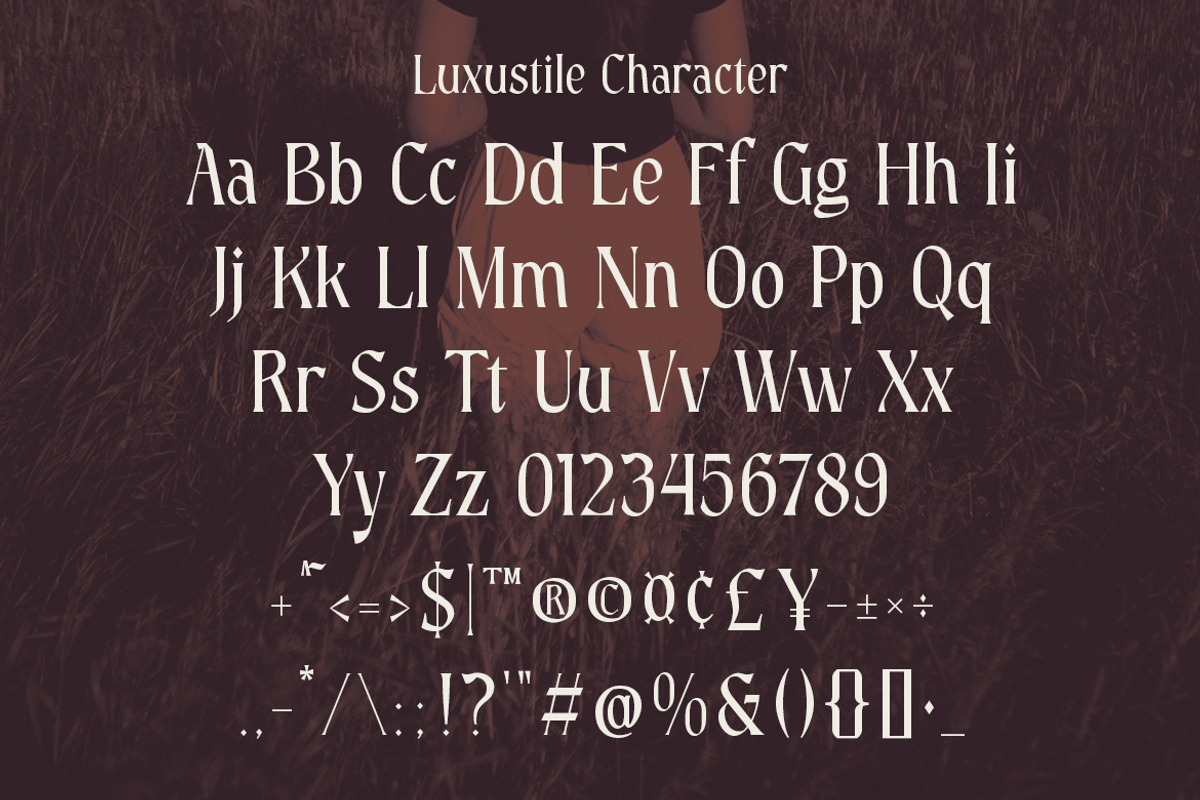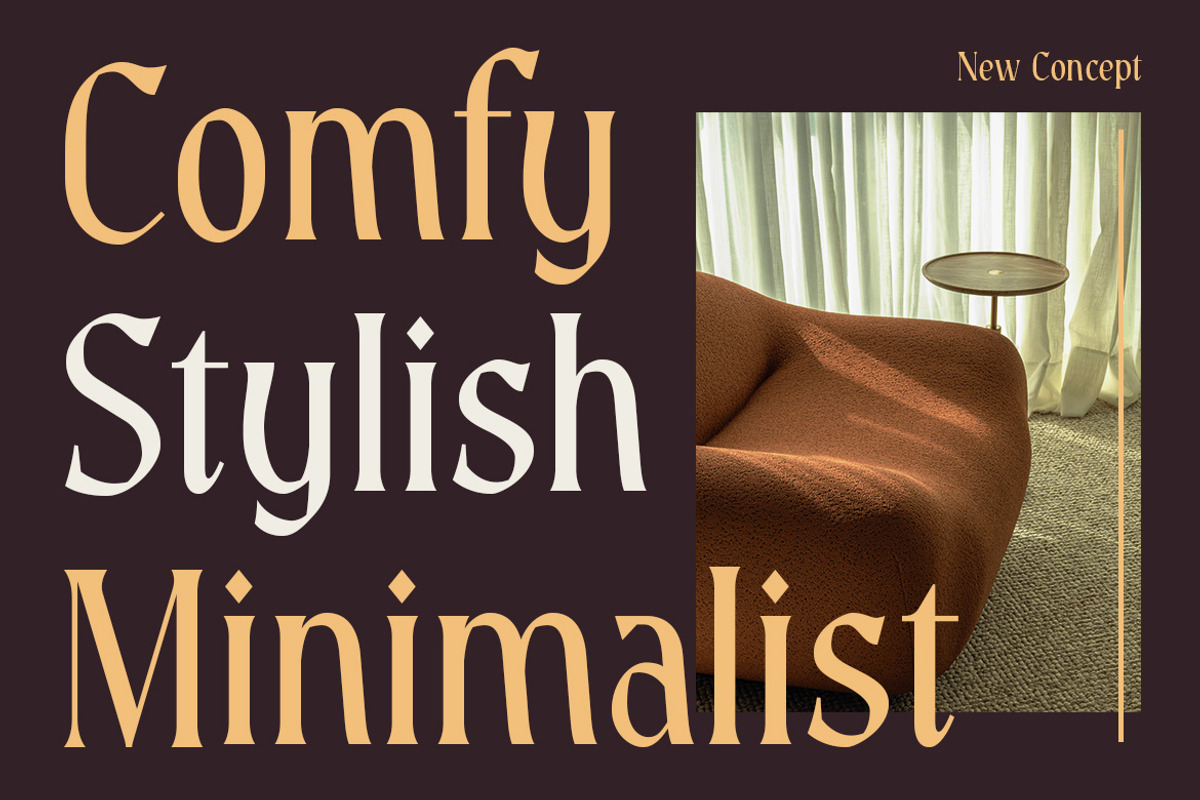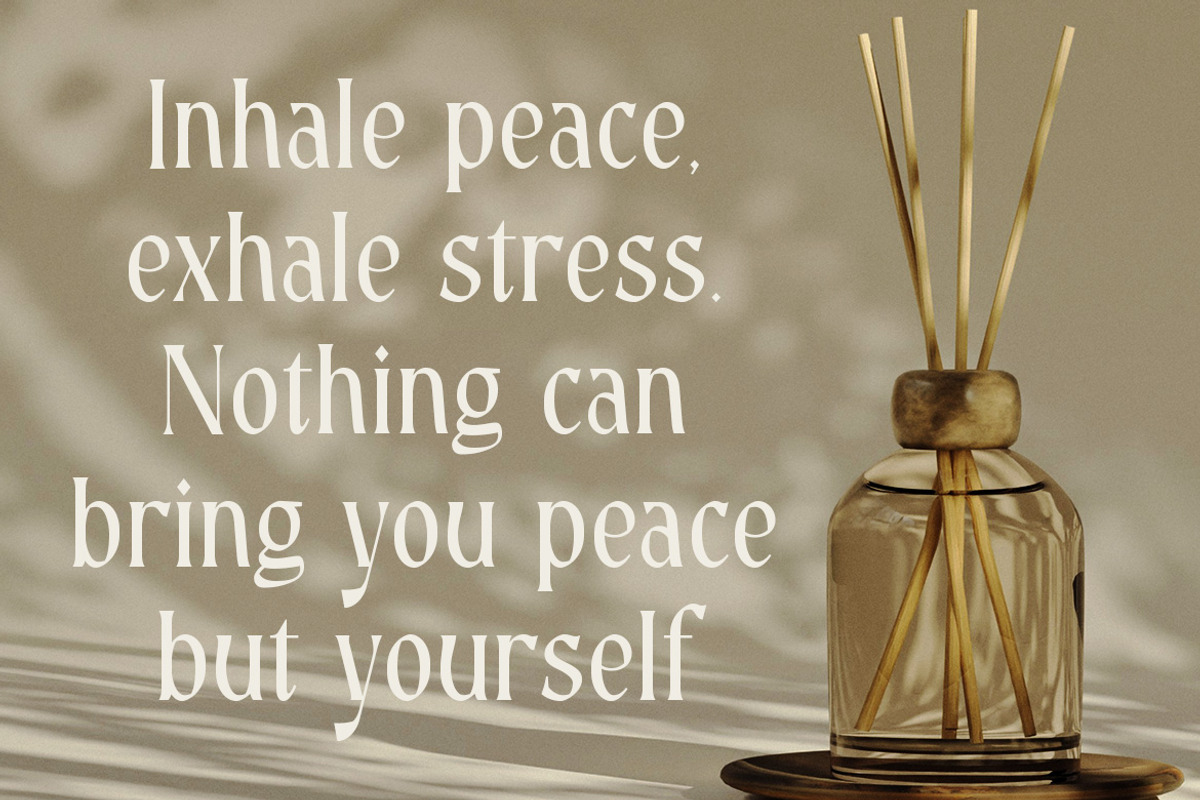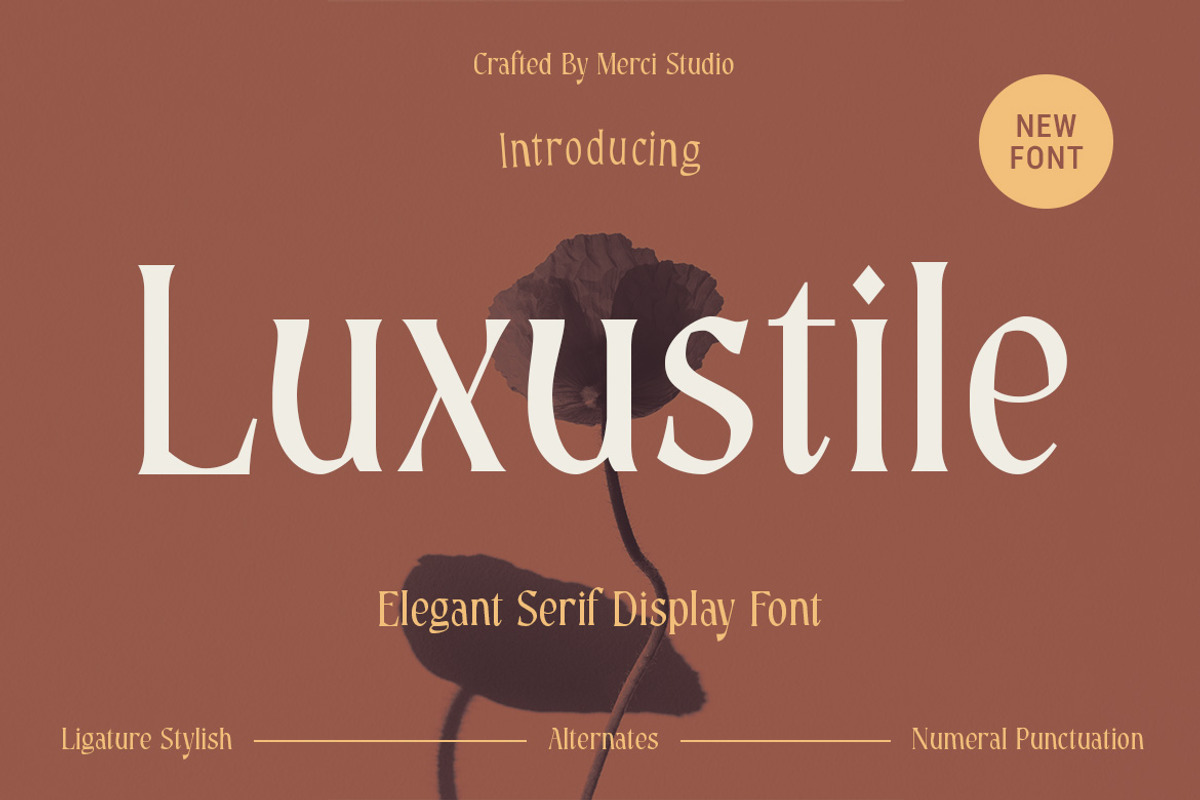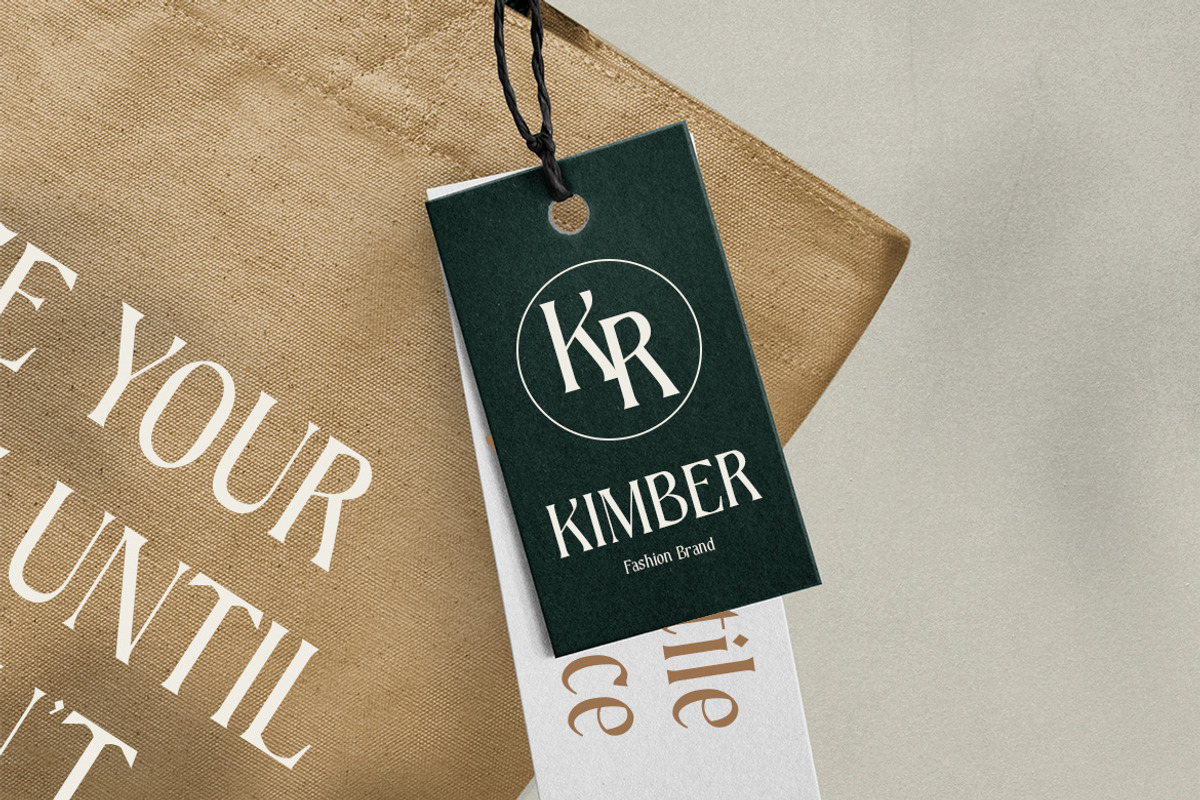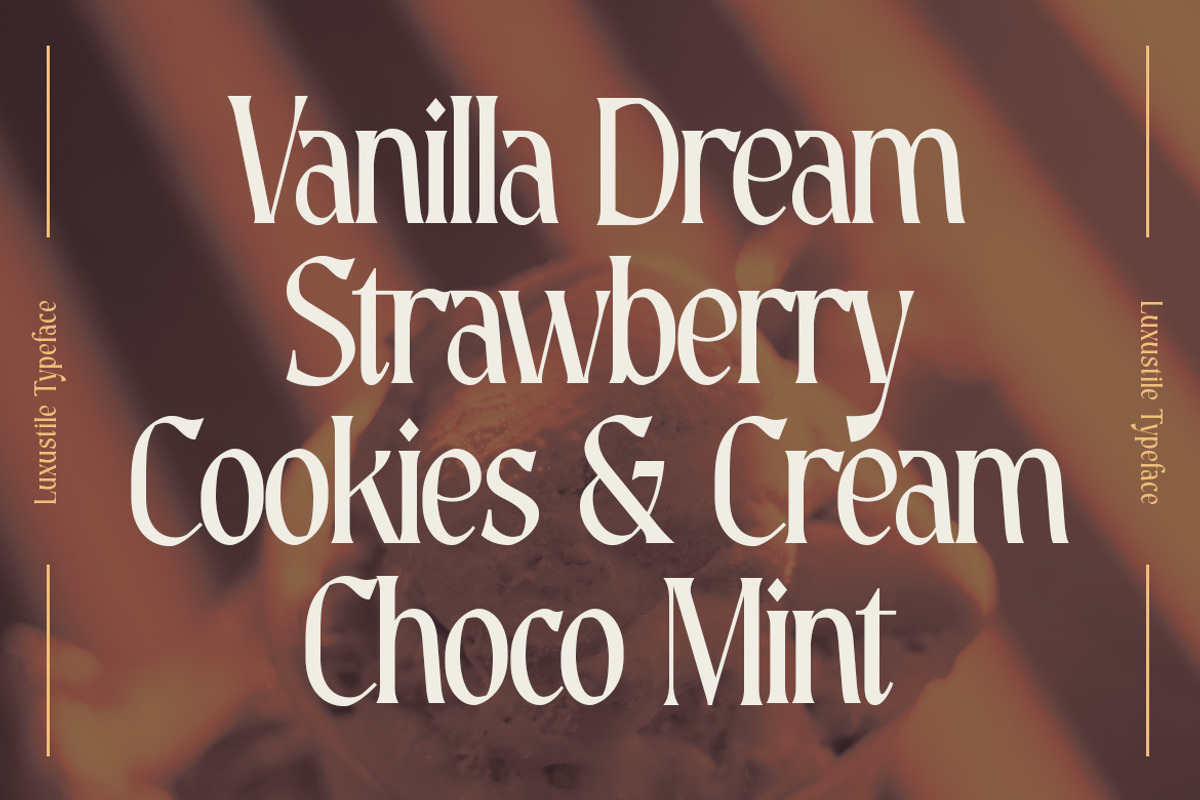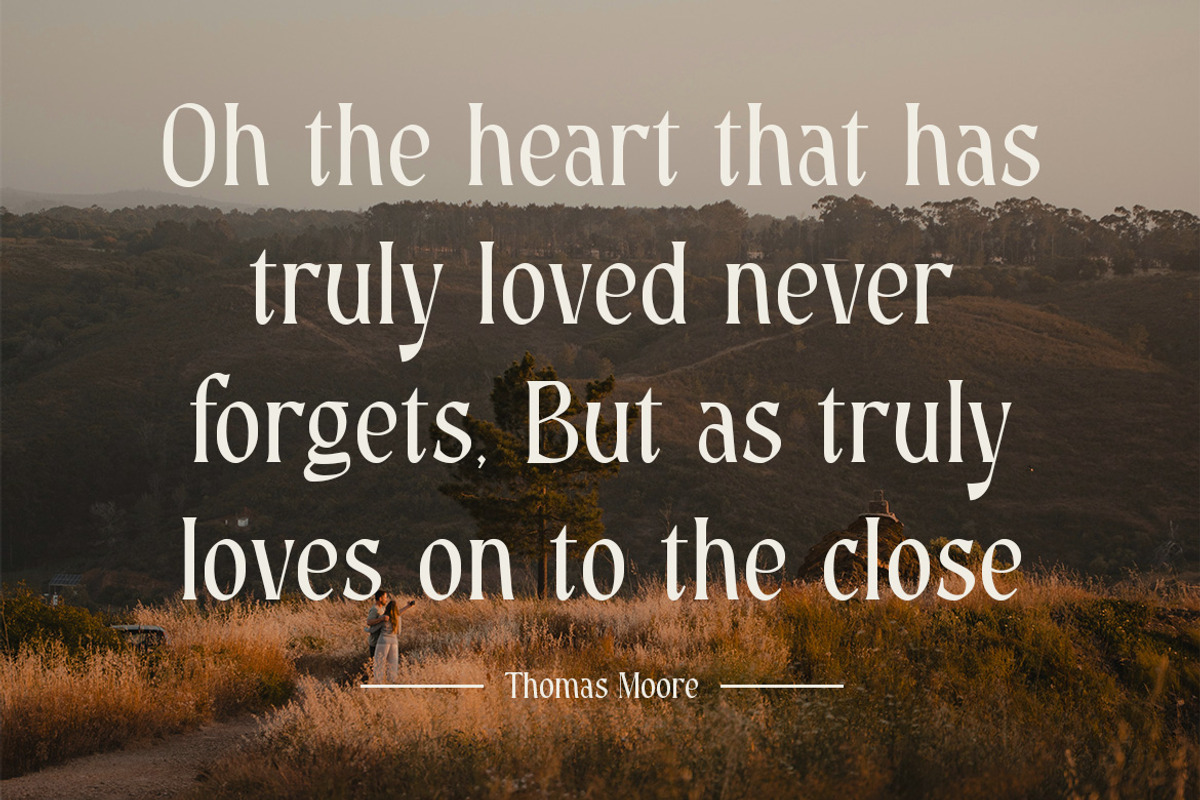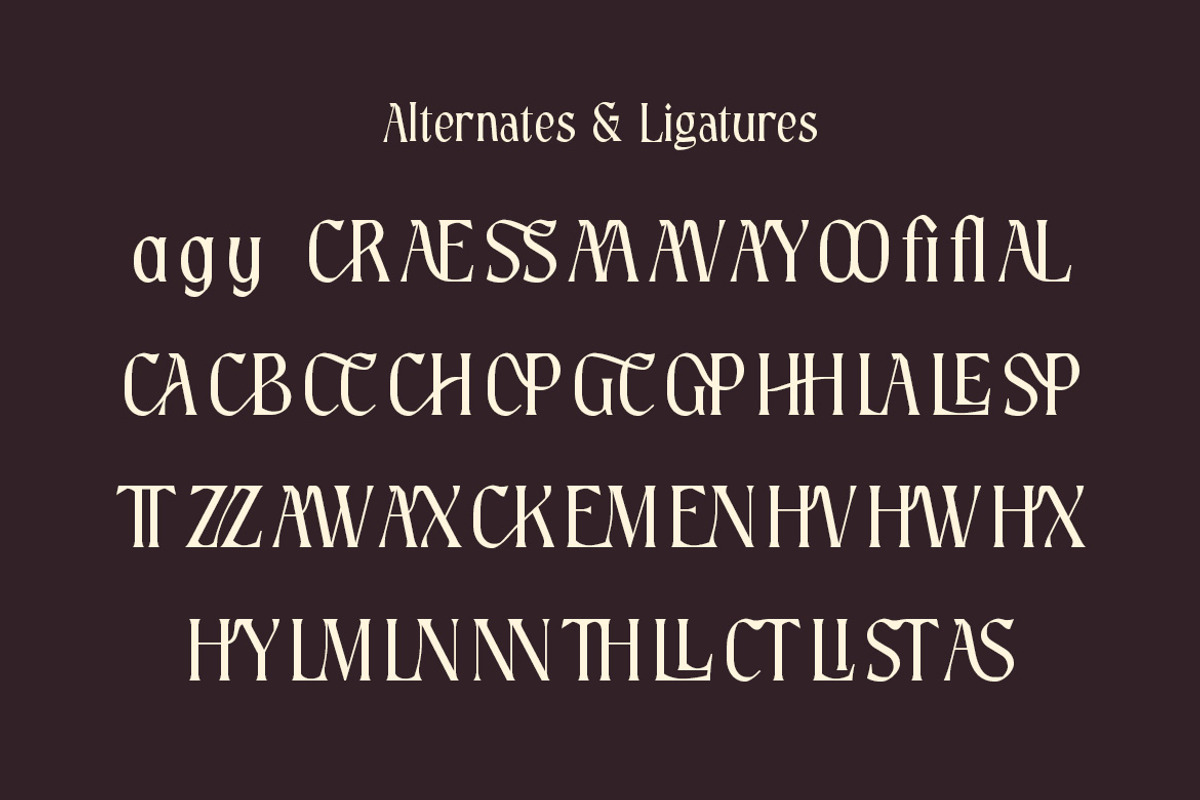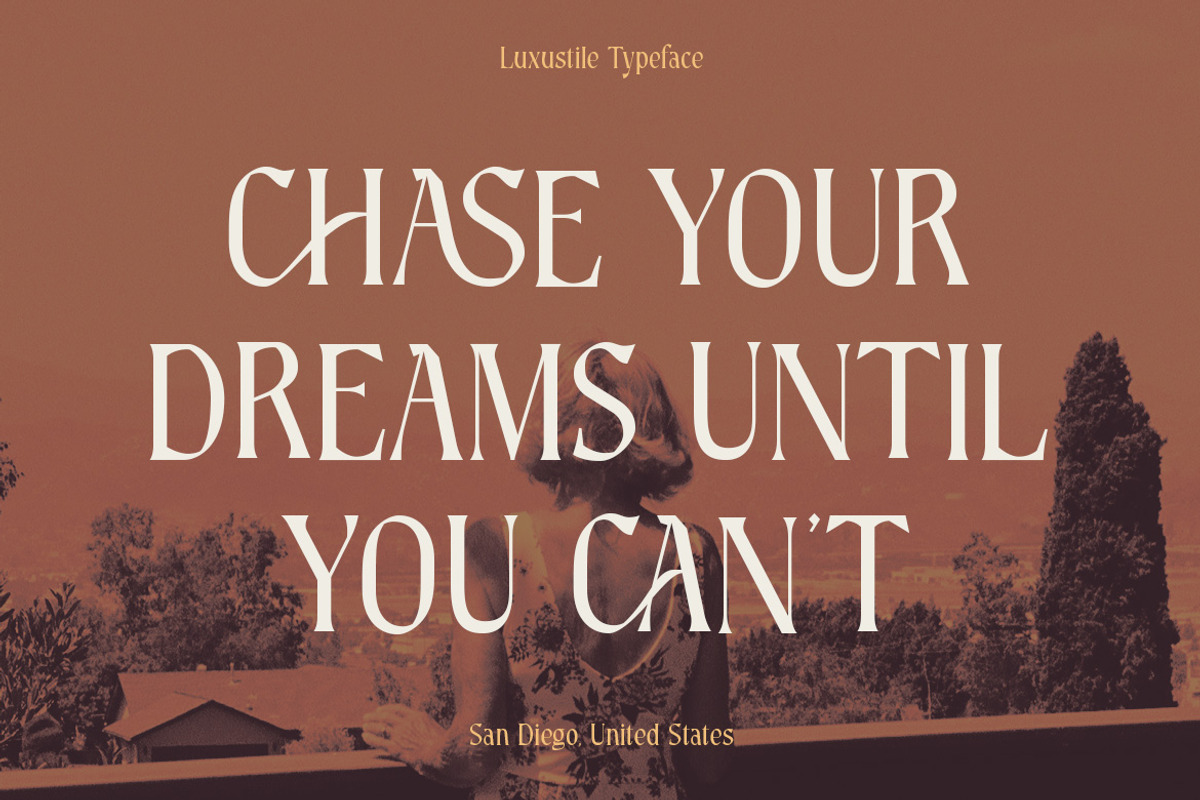
Luxustile – Elegant Serif Font
Luxustile is an elegant serif display font crafted to bring sophistication and refinement to your designs. With its stylish ligatures, graceful alternates, and balanced letterforms, this typeface is perfect for high-end branding, editorials, invitations, packaging, and luxury-themed projects. Luxustile offers a timeless blend of modern elegance and classic charm, making it an excellent choice for designers who want to add prestige and distinction to their work. Whether used for striking headlines, premium logos, or sophisticated typographic layouts, Luxustile ensures every design leaves a lasting impression.